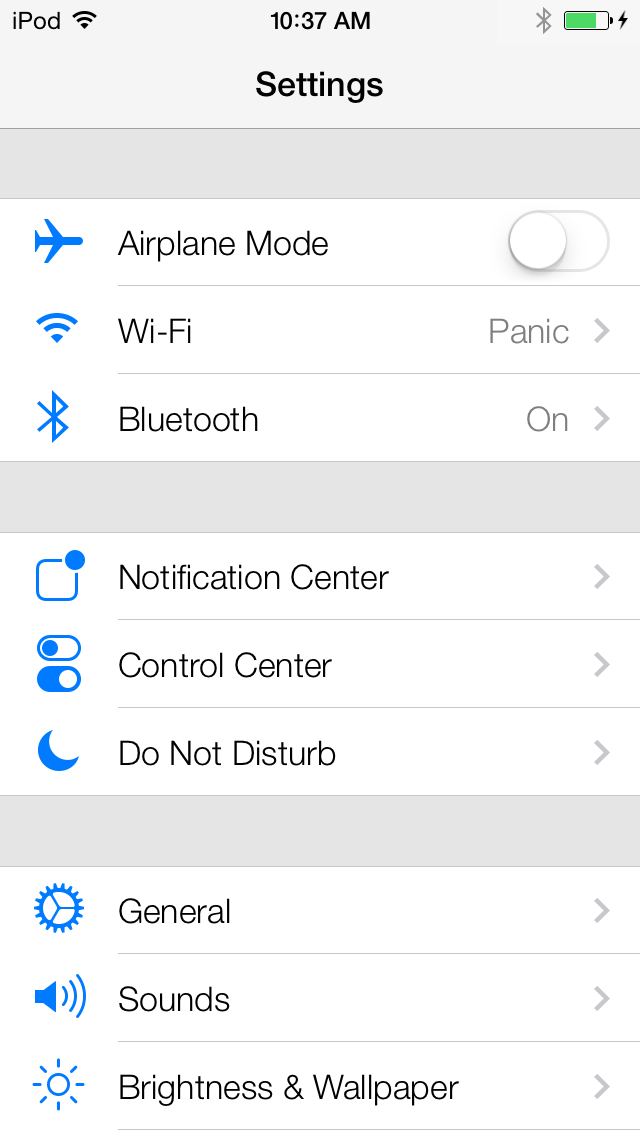
Lighter Type or Heavier type for iOS 7?
• Ultra Light (Beta 1, Beta 2)
• Helv. (Beta 3)
Which one do you like better? I'm personally a fan of the lighter - it looks cleaner and makes iOS7 look much different than its predecessors.
Comparisons...
Beta 1/2:
Personally I think the older version looks nicer in a screenshot, but I prefer the thicker font on my actual phone screen.
Beta 3:
I like the heavier. Looks a lot more clean. The ultra light version looks too futuristic.
Post a screenshot comparison, I can't even remember the difference.
It's a pet peeve of mine when people say Ultra Light, Ultra Light is used incredibly infrequently in iO7. It's only used for things like the lock screen time, world clock, and temperature. What changed was Helvetica Light went to Helvetica Regular/Roman.
Anyway, I prefer Helvetica Light, but maybe I just need to get used to the change.
Most people around my parents' age would struggle to read the original lighter style so, for their benefit & others like them, I vote for the newer heavier font with increased clarity.
Apple must have received feedback that the lighter font was difficult to read and so they changed it. If they get feedback this is too thick maybe they'll add an option in the settings to switch between a normal and light font.
I really liked the lighter fonts. It doesn't really matter THAT much, but it would be nice to just have the option in the end.
On a non retina screen like the iPad mini's the lighter font doesnt look that great, especially with very small font sizes. They should try to fix this, Beta 3 is way better when it comes to this.
I honestly preferred the ultra light more. Now it just looks too bold...especially in the messages app. In the setting it's okay because the type has some space in between it, but it's too close to be that weight in messages. Maybe increase the leading? Or use the "light" weight? It's in between ultralight and regular. Maybe that'll be a nice balance of readability and aesthetics.
Thinner font looked neater but the the thicker version is the better choice. More consistently legible in more situations by more users.
The thinner version would be a step back in usability for many existing iOS 6 users. While you and I may be able to read it just fine, many can't, and I can't imagine anything that would tarnish the impression of the OS worse than "I used to be able to read it and now I can't".
Apple must have received feedback that the lighter font was difficult to read and so they changed it. If they get feedback this is too thick maybe they'll add an option in the settings to switch between a normal and light font.
i doubt the change came as a result of feedback. I think what the final GM will have is ultra light beta 1/2 font for iPhones/ipods, and the regular beta 3 font for ipad's.
ios 7, is only ending up on retina display iphones, where the light font renders quite nicely. but its still coming to the non retina ipad 2 so they need to use the more legible on non-retina font there.
I personally like the light font. Even though my eyesight is bad, I can still see it fine. Although I do understand why some people would prefer the bolder/heavier version.
What I really don't understand is that while Apple is willing to give us different font sizes and the option for bold text, why can't they implement that change over the whole OS instead of only for apps that support it. I mean it's pretty clear that if someone wants to use bold font or a bigger font size, they want to see it across the OS, not just on some apps.
Idea...
How about the CHOICE to select which font you want? Personally, I dont mind the Beta 3 font throughout the OS, however it looks like **** in the Messages app. The lighter font looked so much better for SMS and iMessage.
And seriously, how bad is the majority of everyones eyesight? Mine is pretty bad and I could see the skinny font just fine.
I see via my twitter feed that Business Insider is running a "font gate" click bait story claiming bloggers scored one over on Jony Ive by getting him to change the font in iOS 7. They even get quotes from Marco Armet who seems to think Apple is making changes based off of things on his blog. I almost vomited up my lunch reading the story. According to Mark Gurnman at 9to5Mac, things we're seeing in beta 3 were floating around during WWDC.
i doubt the change came as a result of feedback. I think what the final GM will have is ultra light beta 1/2 font for iPhones/ipods, and the regular beta 3 font for ipad's.
ios 7, is only ending up on retina display iphones, where the light font renders quite nicely. but its still coming to the non retina ipad 2 so they need to use the more legible on non-retina font there.
While I prefer the lighter font myself, I don't mind the new one.. but my thought is, why not change the Bold switch in Accessibility to a toggle between normal (beta 3 norm) light (beta 1, 2) and bold (help, I can't see things)?
The funny thing is that I already adopted to the “Ultra Light” variation of Helvetica Neue, so that the “normal” one looks too fat now. But yeah, the heavier typeface is definitely better.